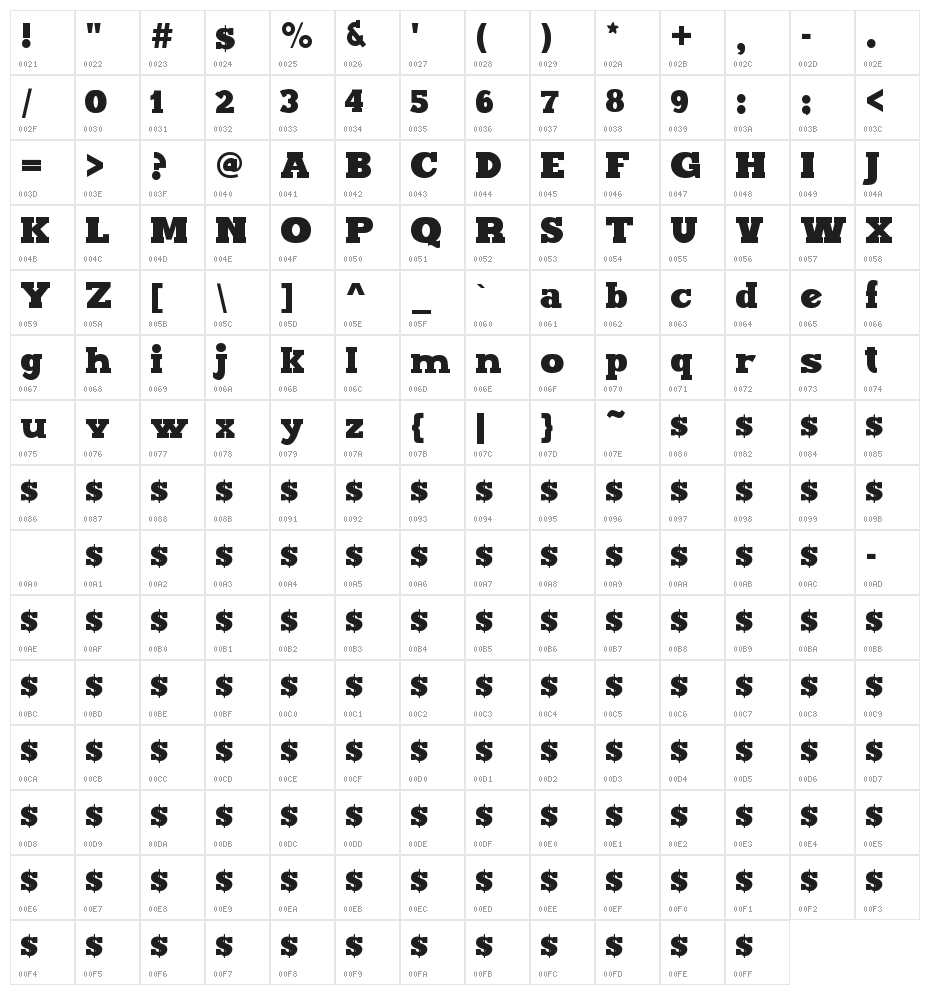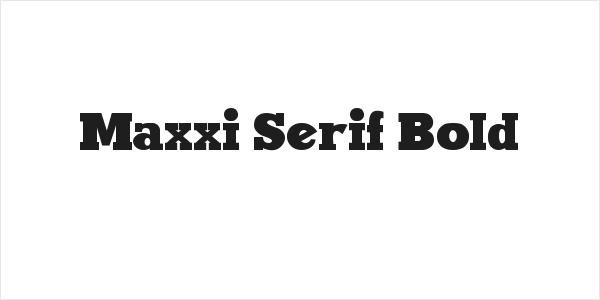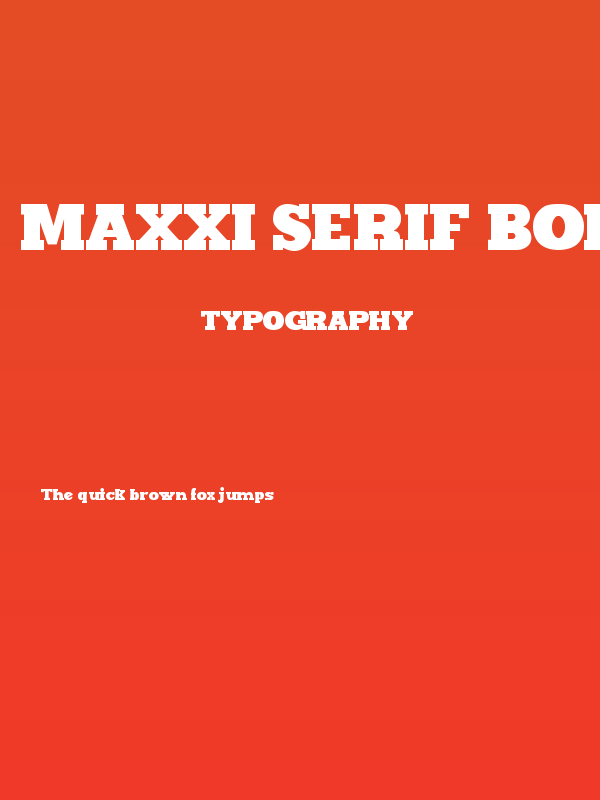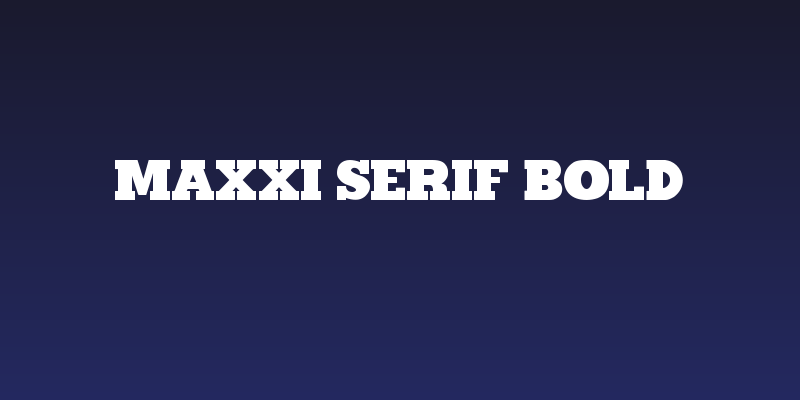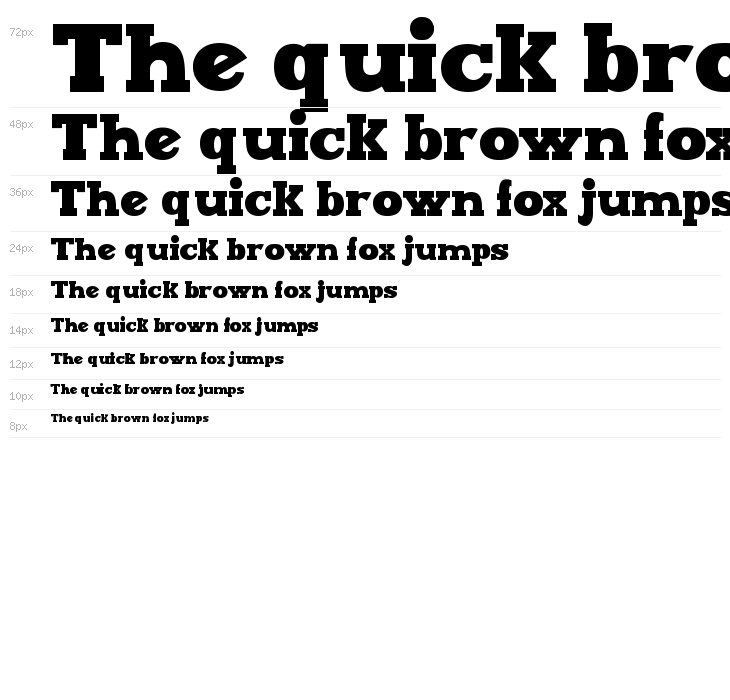
Maxxi Serif Bold Font
Maxxi Serif Bold Description
This font exhibits a bold and commanding presence with its thick, robust strokes and pronounced serifs. The uppercase letters are strong and impactful, making them ideal for attention-grabbing headlines. The lowercase characters maintain a consistent weight, providing a harmonious balance between readability and style. Numbers are equally bold, ensuring clarity and emphasis. The special characters are well-integrated, maintaining the overall aesthetic. This font's design is both classic and modern, making it versatile for various applications.